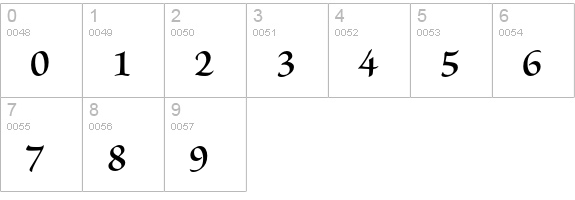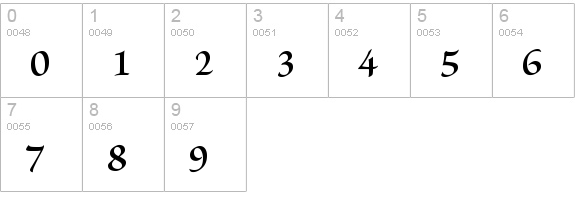
Brioso Pro Semibold Font Details
Brioso Pro Semibold is a sub-bold, structured variant in the Brioso typeface family \xE2\x80\x94 well suited to sub-headlines and emphasised passages.
Brioso Pro Semibold is a versatile and elegant font that strikes the perfect balance between sophistication and readability. With its strong and confident appearance, Brioso Pro Semibold is ideal for creating impactful headlines, titles, and branding materials. This font exudes a sense of modernity and professionalism, making it a popular choice among designers and creatives. What sets Brioso Pro Semibold apart is its exceptional readability and versatility across various design projects. Whether used for print or digital media, this font ensures that your message is conveyed with clarity and style. The semi-bold weight adds a touch of boldness without being overpowering, making it suitable for a wide range of applications. The best part? Brioso Pro Semibold is available for free download at FontsMarket.com. Now you can enhance your designs with this premium font without breaking the bank. Don't miss out on the opportunity to elevate your projects with the timeless elegance of Brioso Pro Semibold. Download it today and unlock a world of design possibilities!